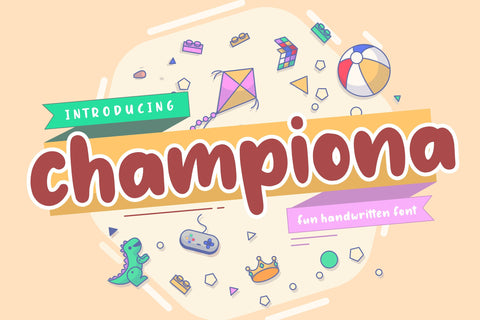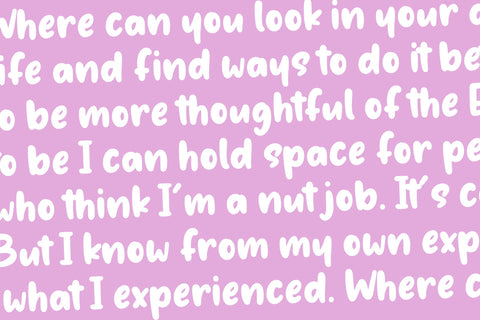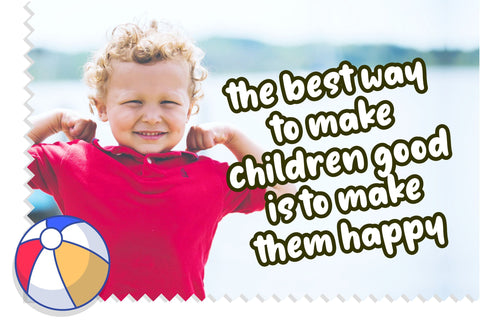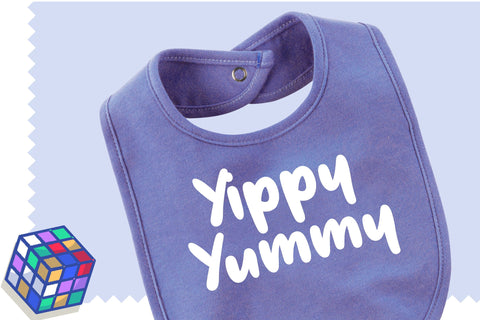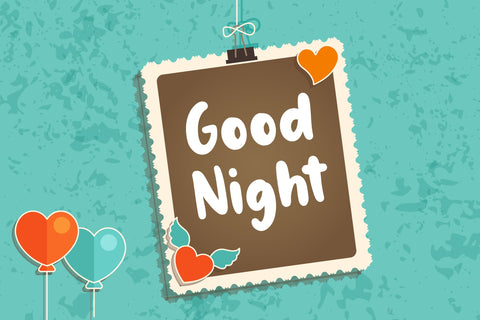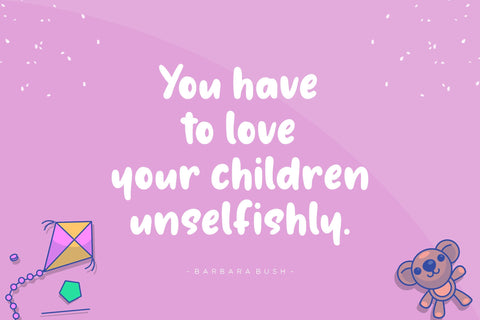
championa Fun Handwritten font
championa is a Fun Handwritten font.
championa is perfect for product packaging, branding project, megazine, social media, wedding, or just used to express words above the background.